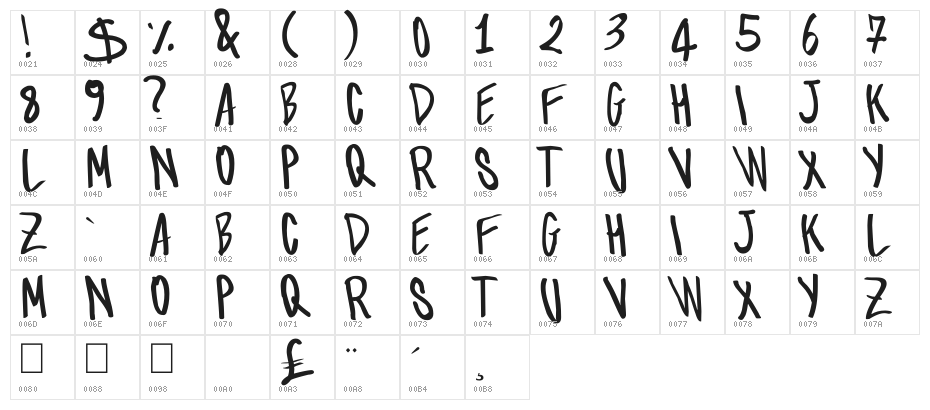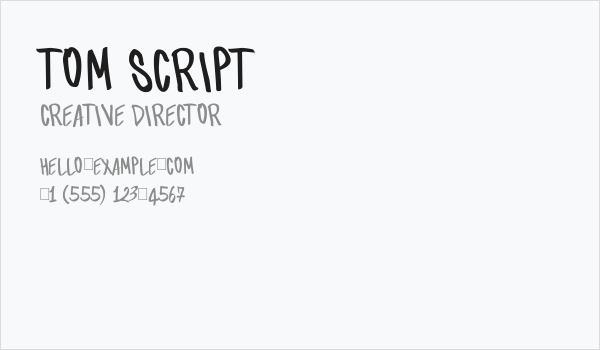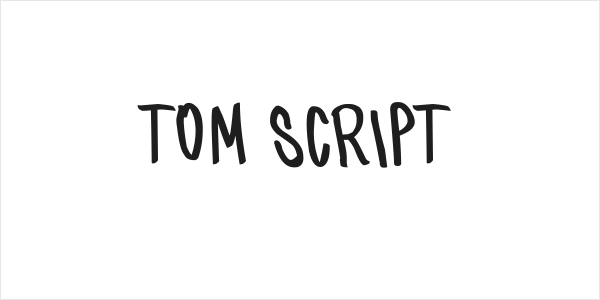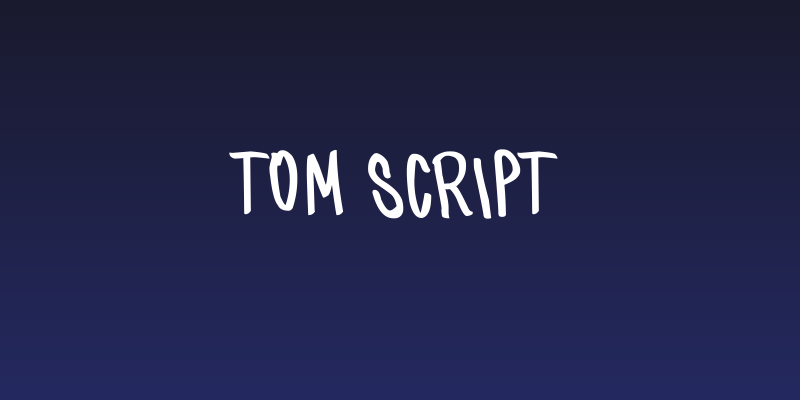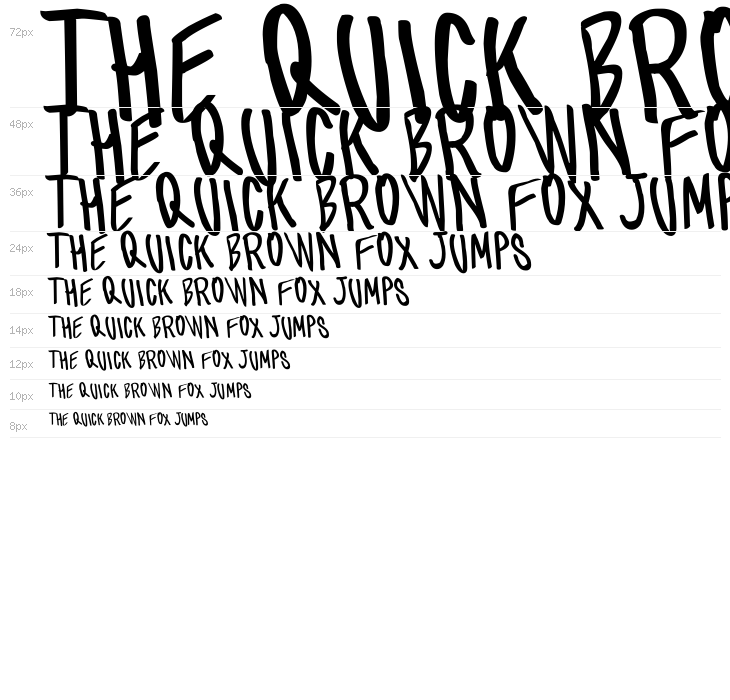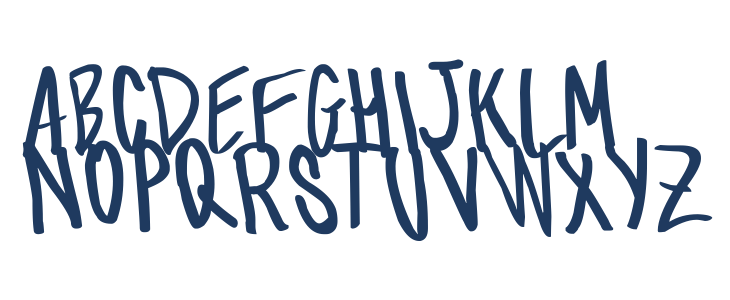
tom script Font
tom script Description
This font exudes a playful and energetic vibe, characterized by its bold and dynamic strokes. The letters are crafted with a hand-drawn style, giving them a casual and informal appearance. The uppercase and lowercase letters maintain a consistent flow, with slightly irregular shapes that add to the font's charm. The numbers and special characters are equally expressive, ensuring a cohesive look across all elements. This font is perfect for projects that require a touch of personality and creativity, making it ideal for artistic and informal applications.
| Proposed Projects | Great for greeting cards, posters, branding projects, and social media graphics. |